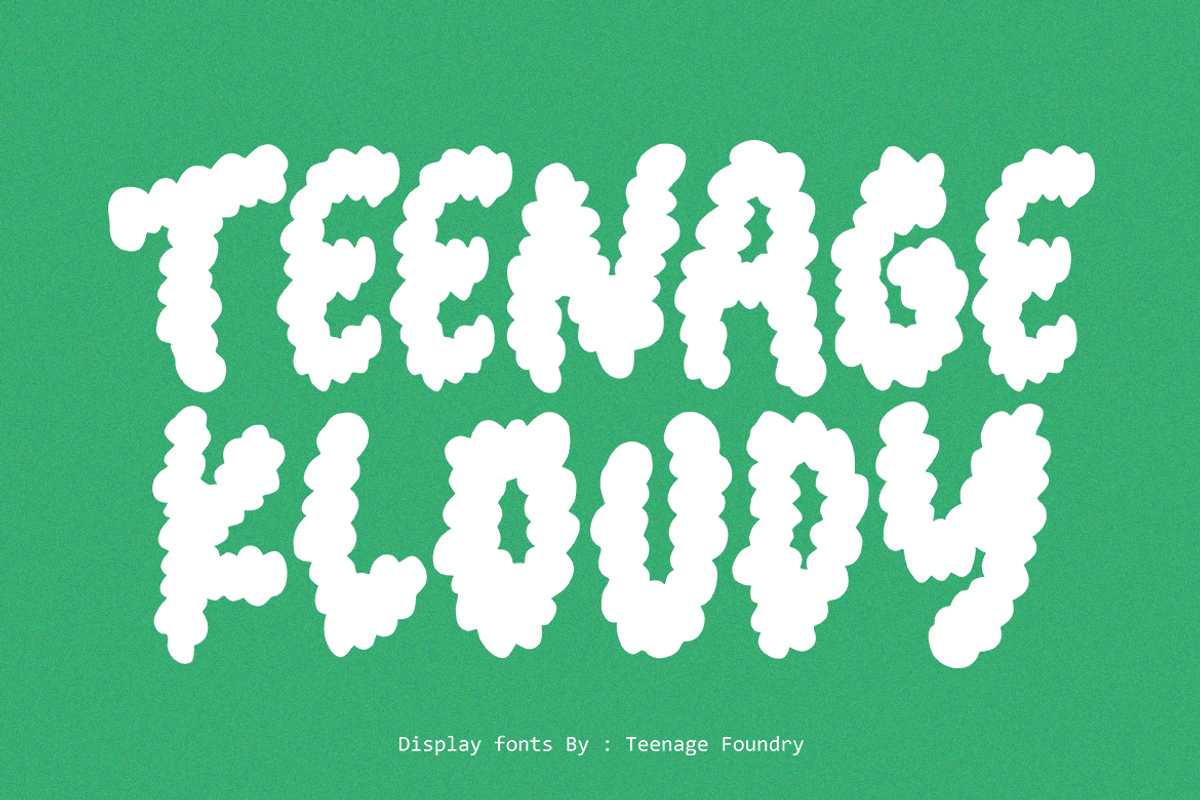
Please note, you must purchase this font for commercial use. However, you can easily download Teenage Kloudy Font Free Download for personal use and testing purposes. Teenage Kloudy Font is a playful, fun typeface with a bold, cloud-like aesthetic. Perfect for projects targeting a youthful, modern audience, this font works great for branding, logos, posters, and social media graphics. Its unique, whimsical design gives off a carefree, dynamic vibe, making it ideal for casual or creative projects. Whether you're designing for a fun event, a trendy brand, or a creative campaign, Teenage Kloudy Font Free Download will add personality and flair to your design. Download Teenage Kloudy Font Free Download today and explore its potential before opting for a commercial license.